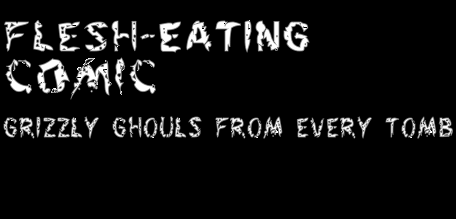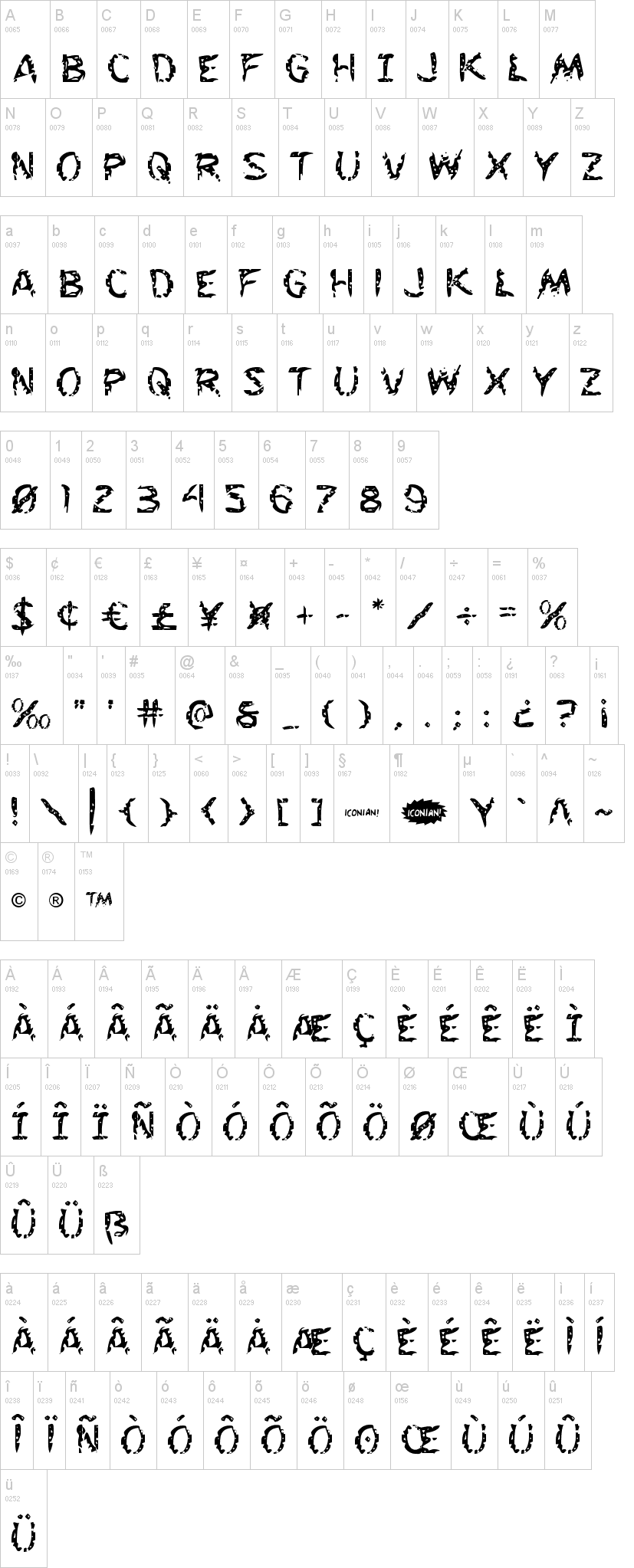
flesheatingital.ttfflesheatingleft.ttfflesheatingbold.ttfflesheatingboldital.ttfflesheating3d.ttfflesheating3dital.ttfflesheatingwhack.ttfflesheatingwhackital.ttfflesheatingcond.ttfflesheatingcondital.ttfflesheatingexpand.ttfflesheatingexpandital.ttfNote of the authorFlesh Eating Comic is a comic book lettering font that's been infected by a zombie virus and is partially eaten away! Comes with a full character set and the Euro.